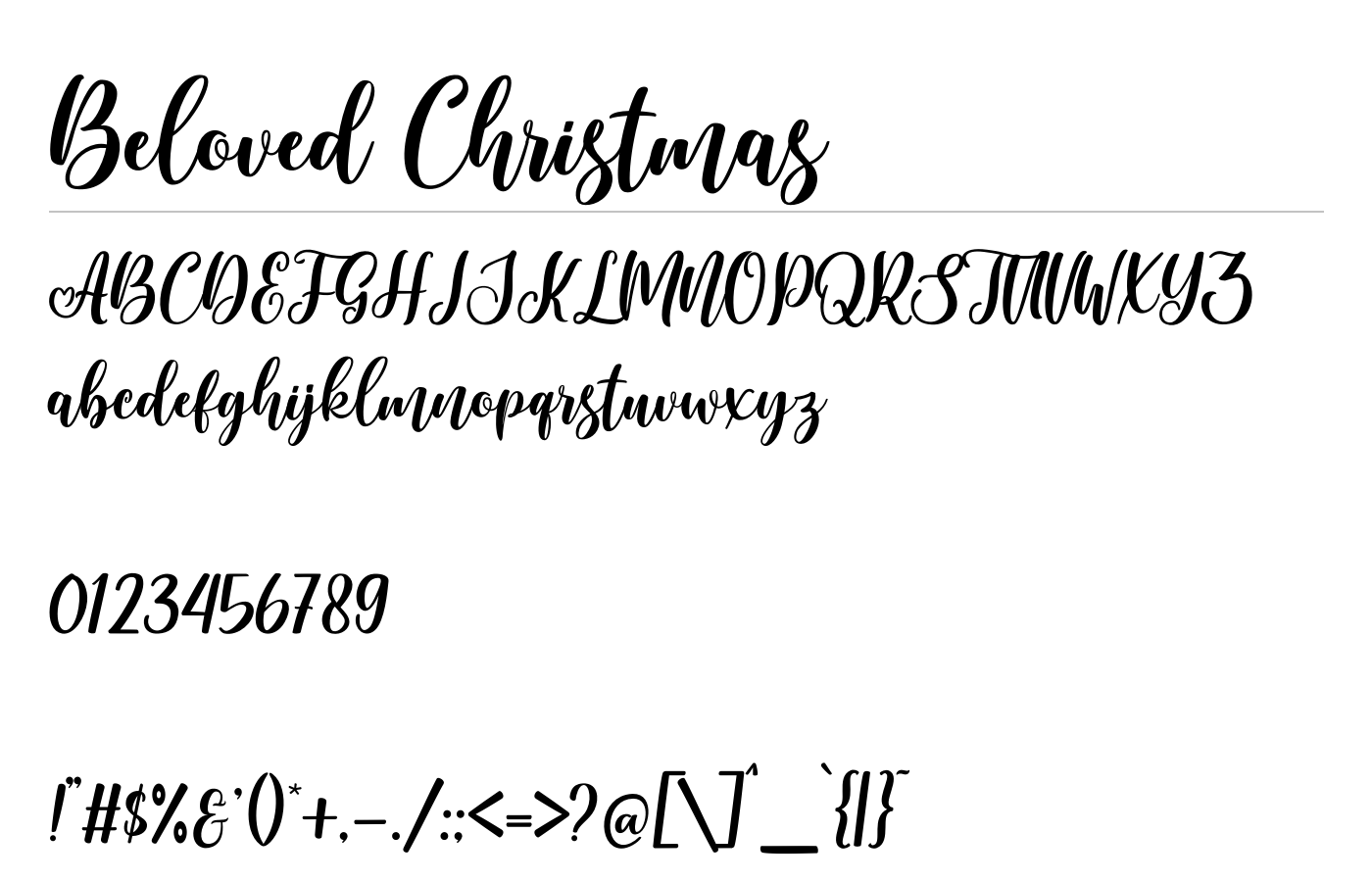
Beloved Christmas is a lively and elegant script font characterized by its smooth, flowing strokes and playful swashes. With a moderate weight and a slightly condensed width, this font offers a warm and festive feel, perfect for seasonal greetings and joyful branding. Its calligraphic style and refined curves make it ideal for holiday cards, invitations, and decorative headlines that aim to evoke a sense of charm and celebration.
Beloved Christmas Font
About Beloved Christmas Font
| Font family | Beloved Christmas Font |
| Designer | Andri Ardianto & Madatype Studio |